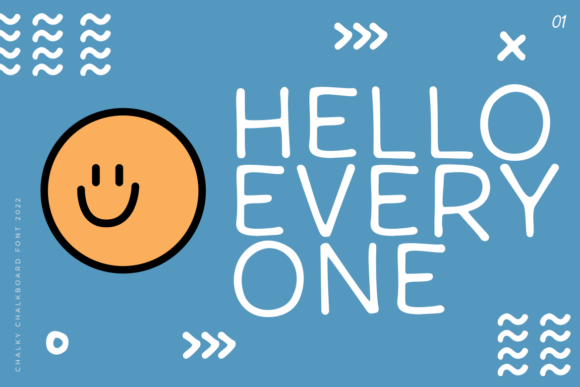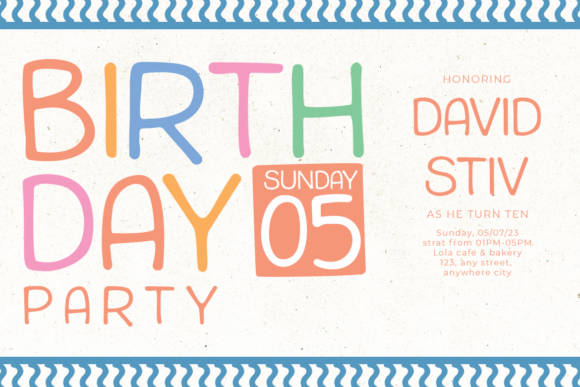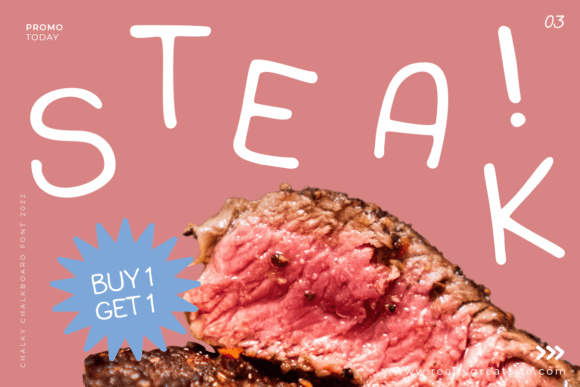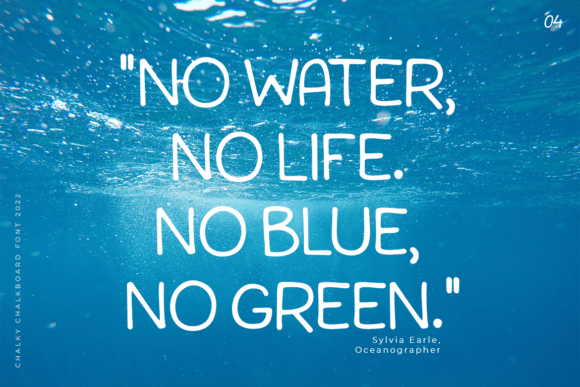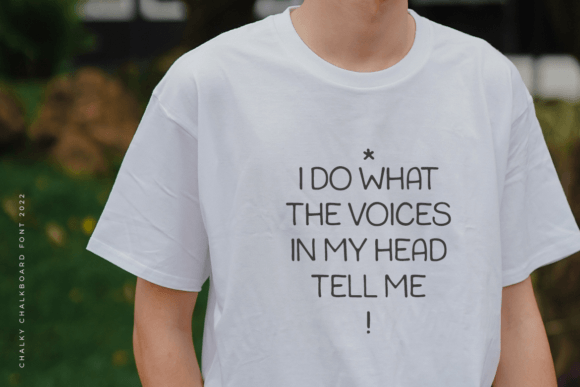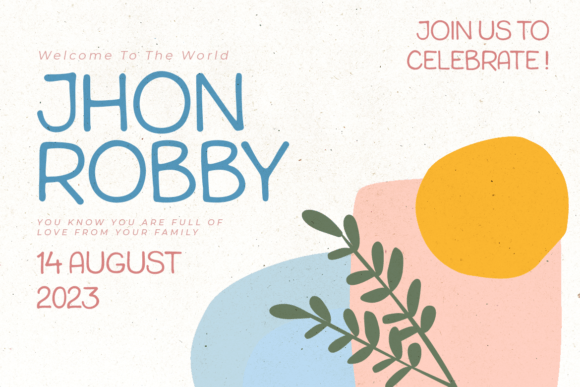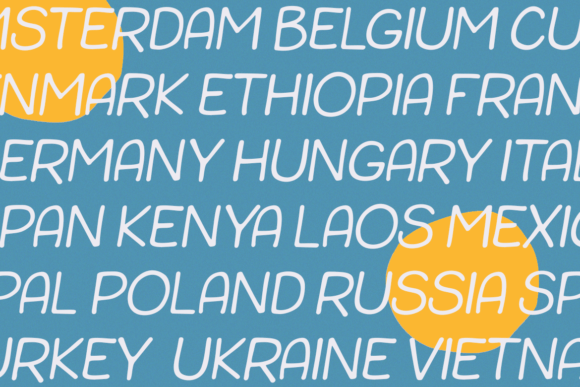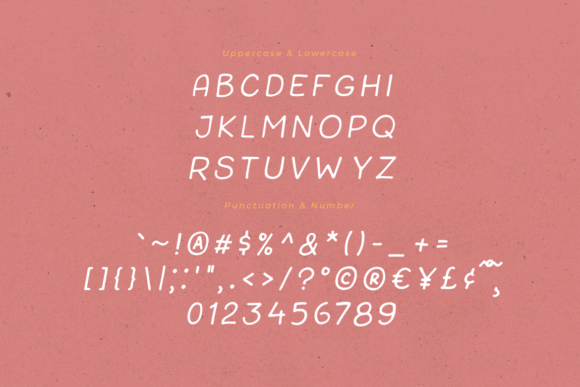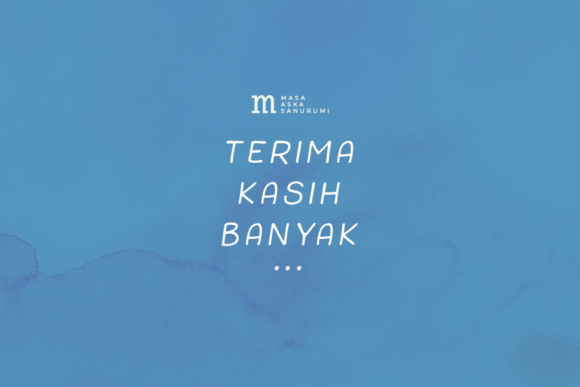
Chalky Chalkboard Font
Introducing Chalky Chalkboard, a versatile, stylish, and playful handwritten font designed to add a touch of creativity to a wide spectrum of applications. Whether you’re working on greeting cards, headlines, or various other creative projects, Chalky Chalkboard brings a clean and exquisite feel to your designs.
The versatility of Chalky Chalkboard makes it suitable for a variety of contexts. Its playful handwritten style adds character and charm, making it a standout choice for projects that require a touch of creativity.
Imagine Chalky Chalkboard infusing a sense of playfulness into your greeting cards, where its stylish script adds a unique and delightful touch. Picture it capturing attention in headlines, creating a visually appealing and memorable impact. Envision it becoming a key element in your creative projects, offering a clean and stylish aesthetic.
Chalky Chalkboard is not just a font; it’s a creative tool that adapts effortlessly to your design needs. Its playful and stylish elements ensure that it becomes a go-to choice for projects where you want to convey a sense of creativity and charm.